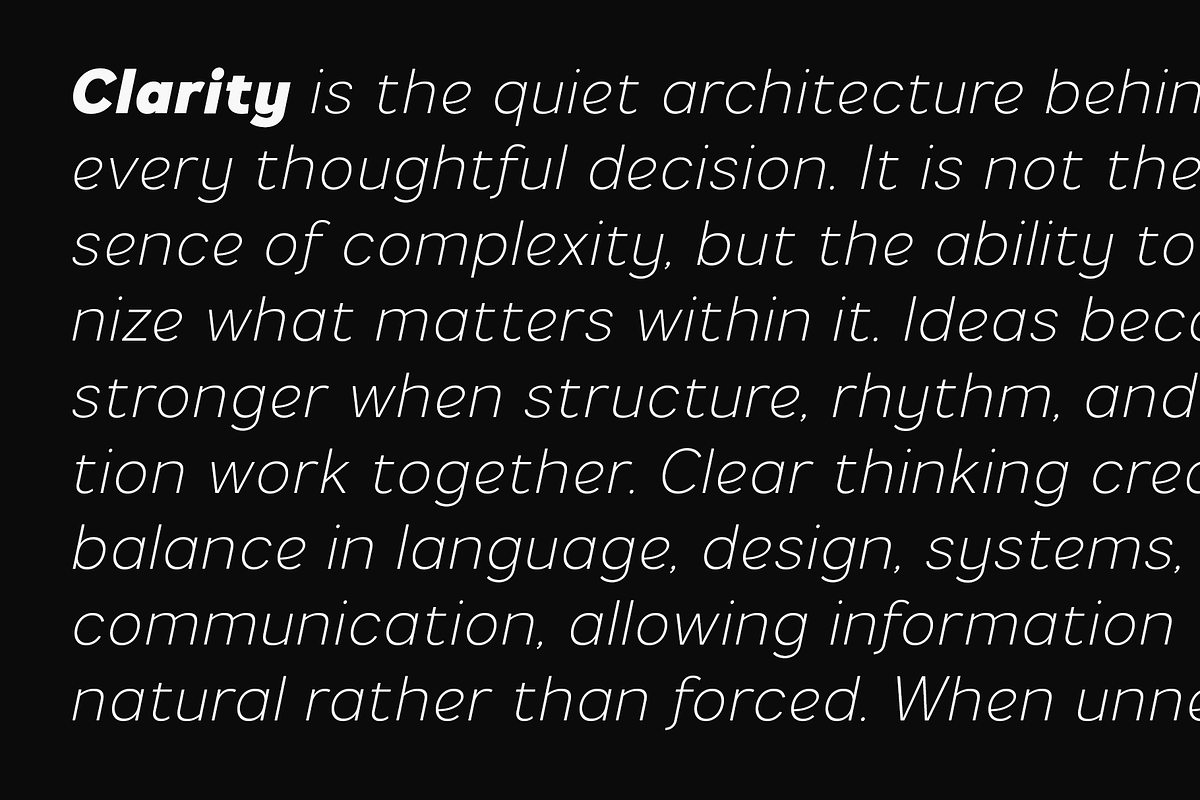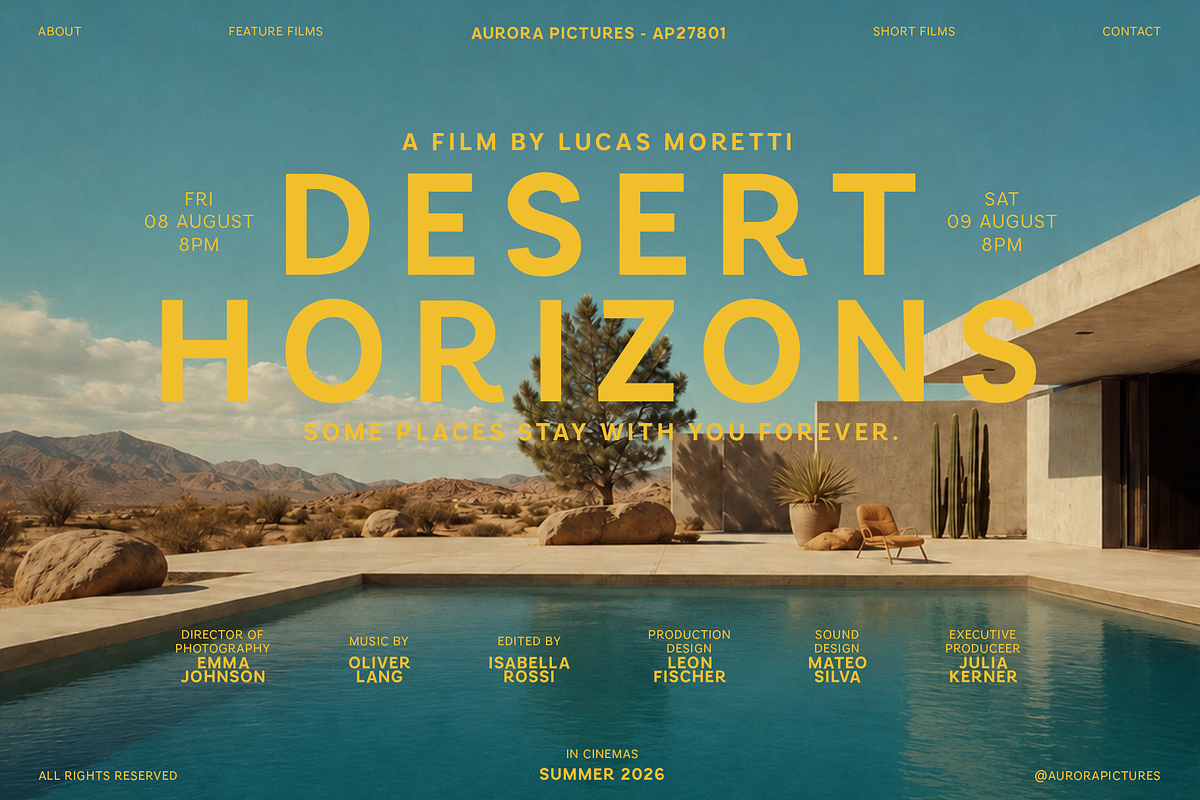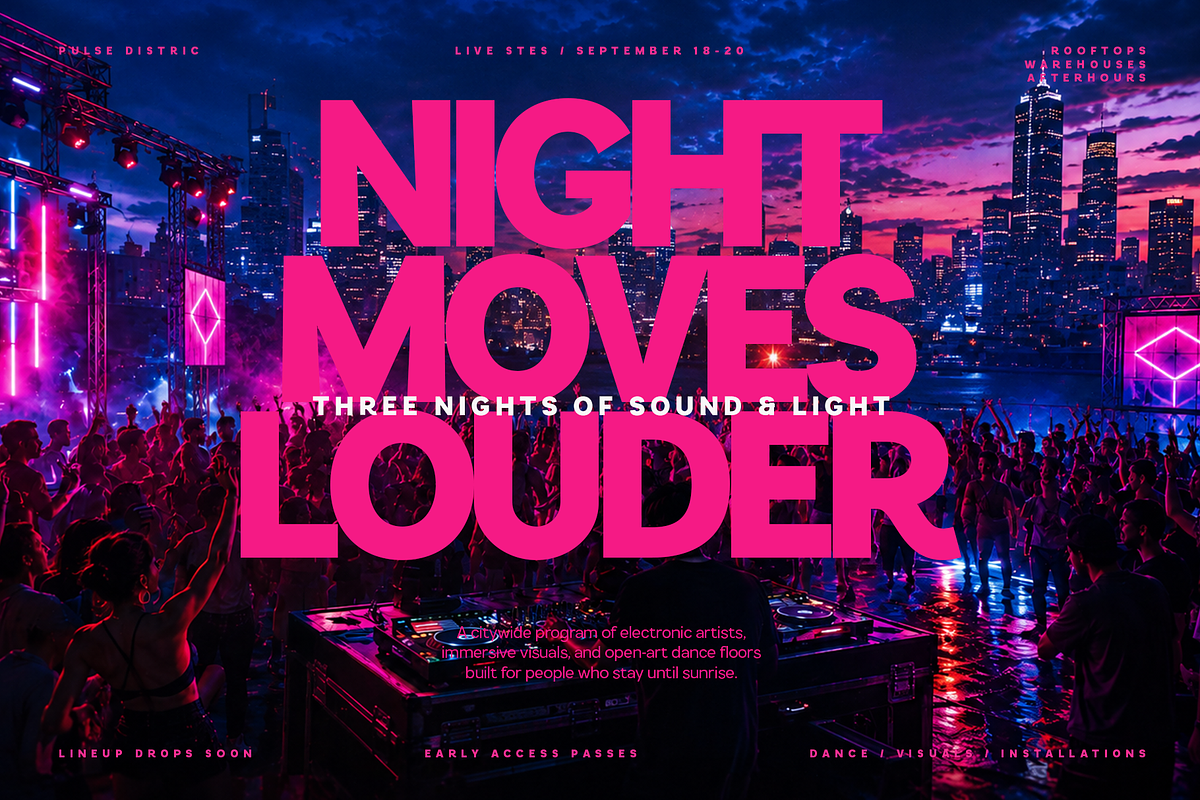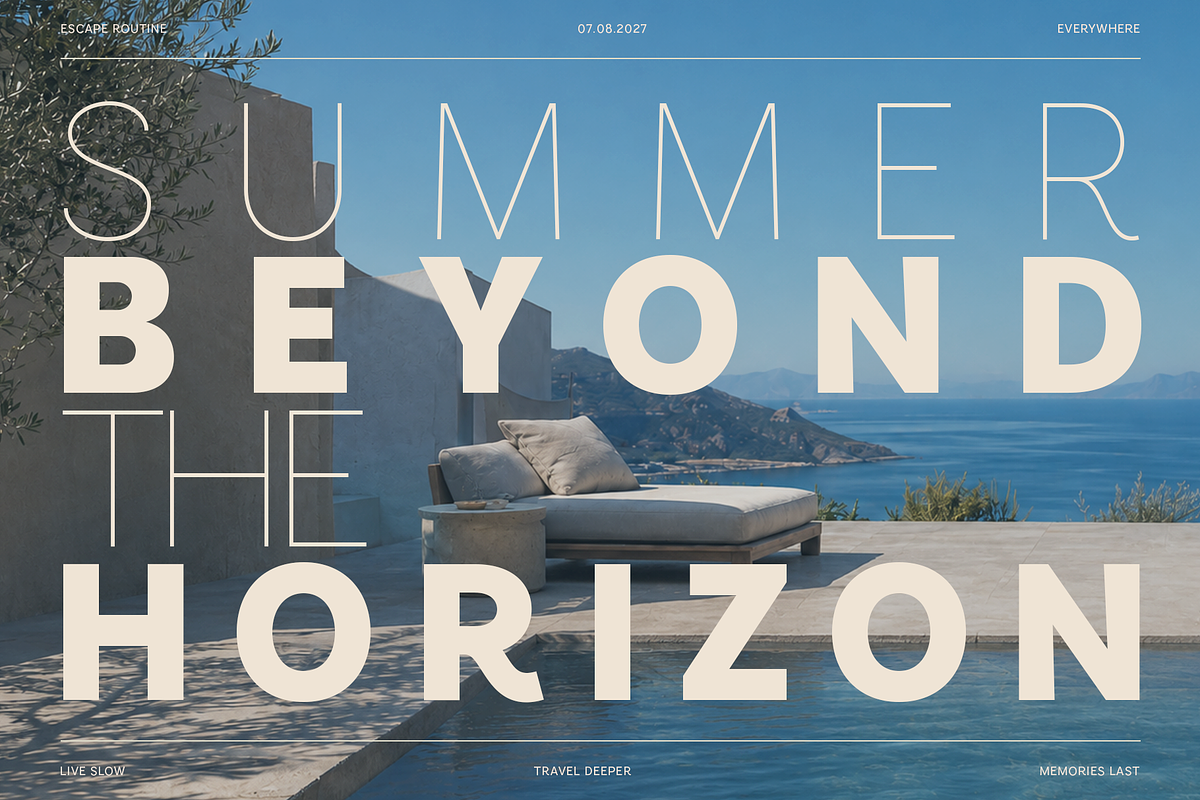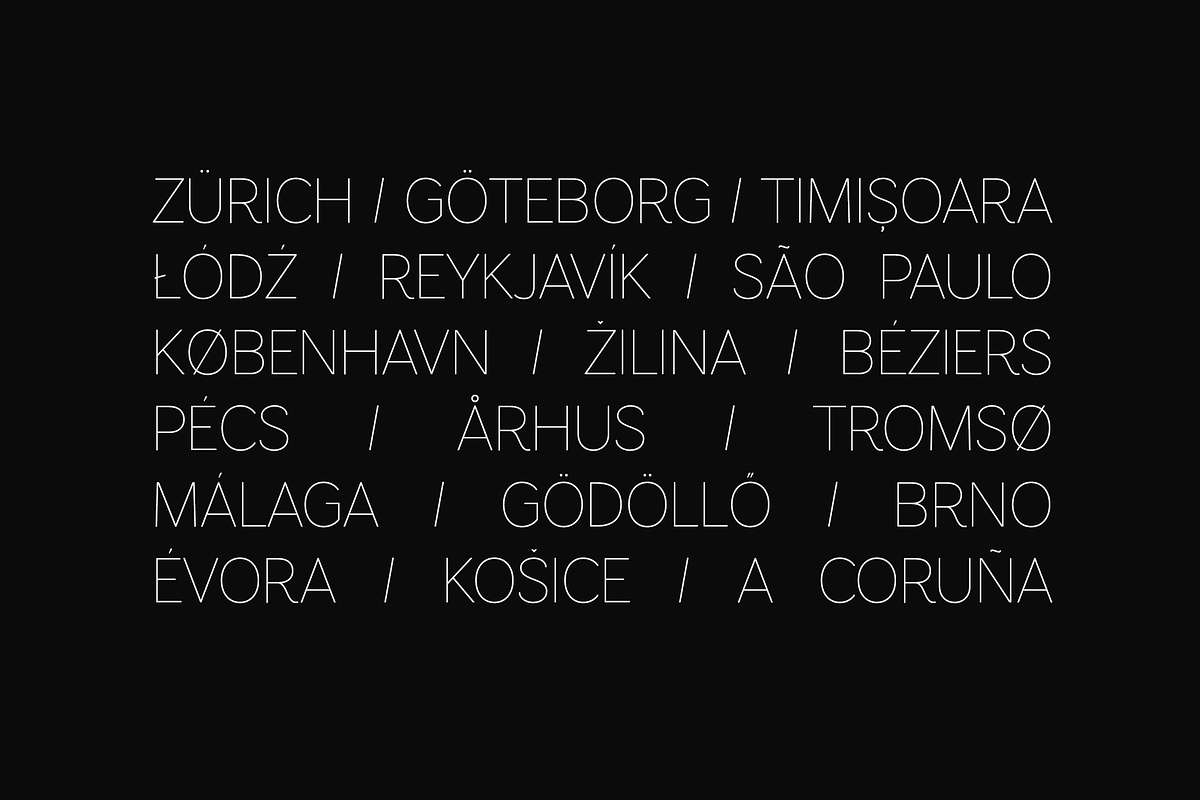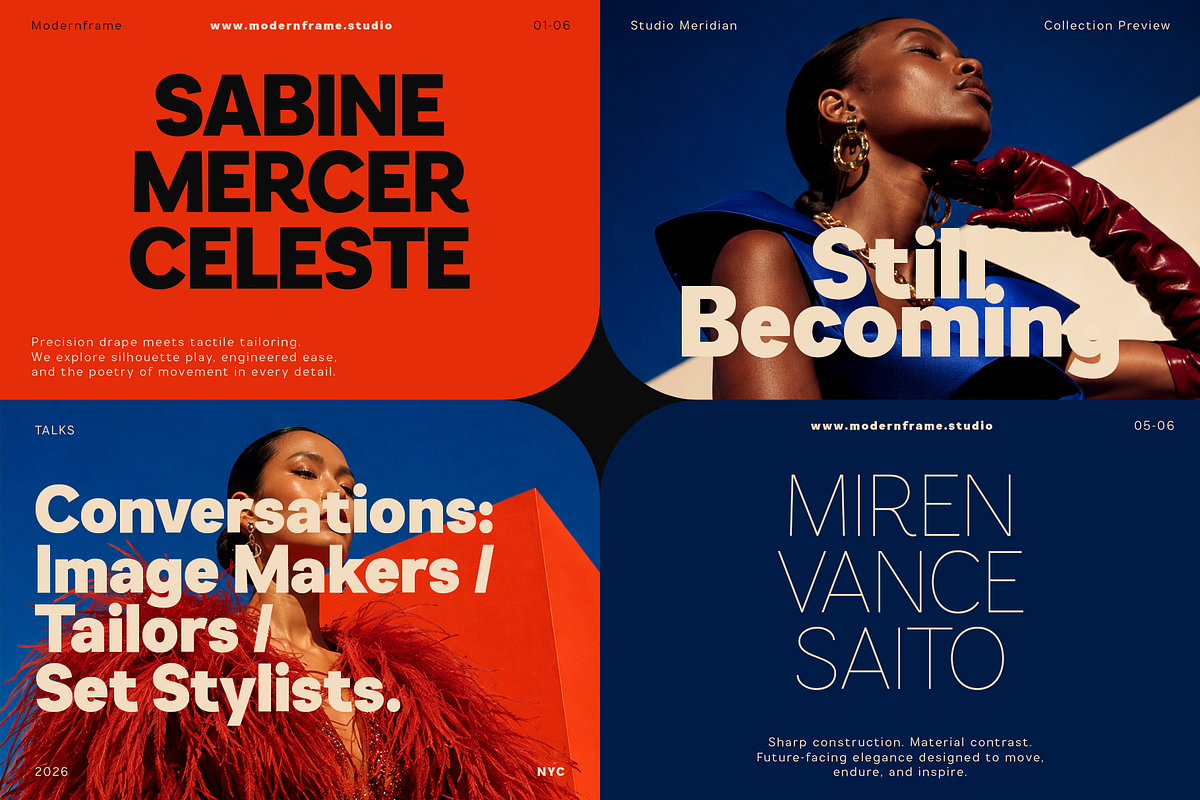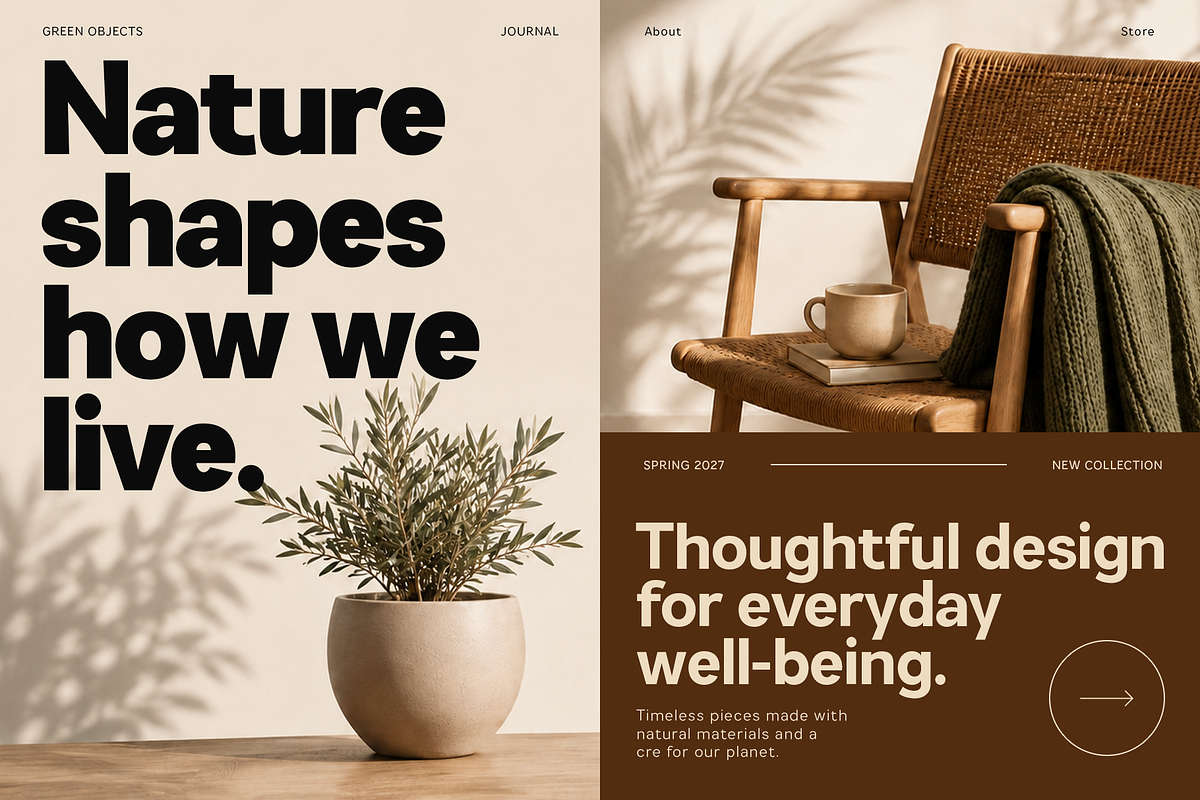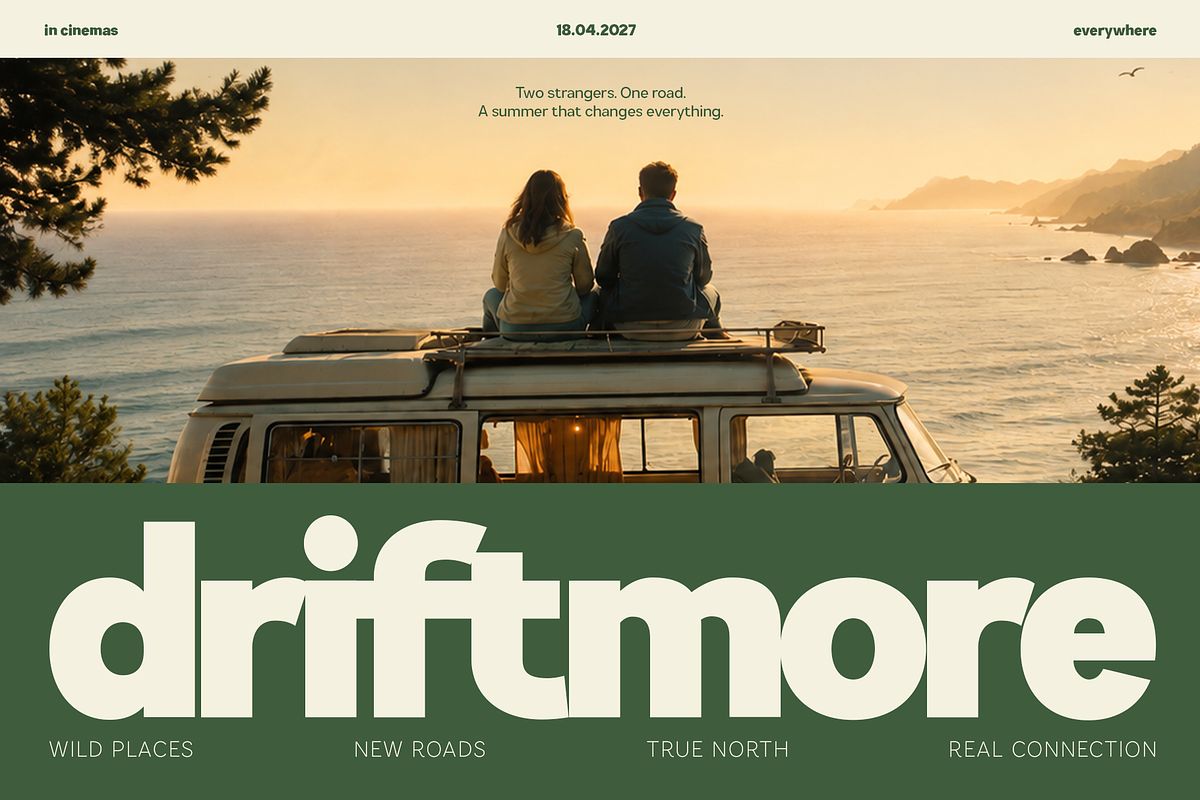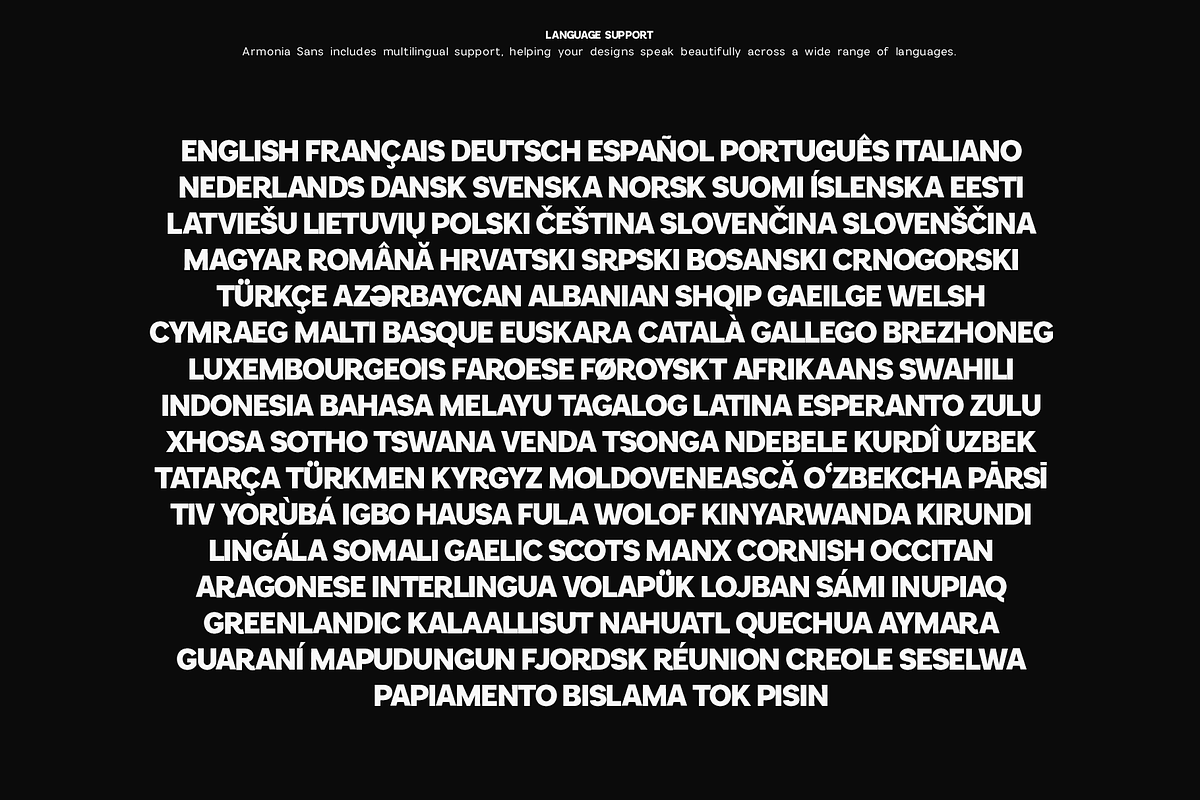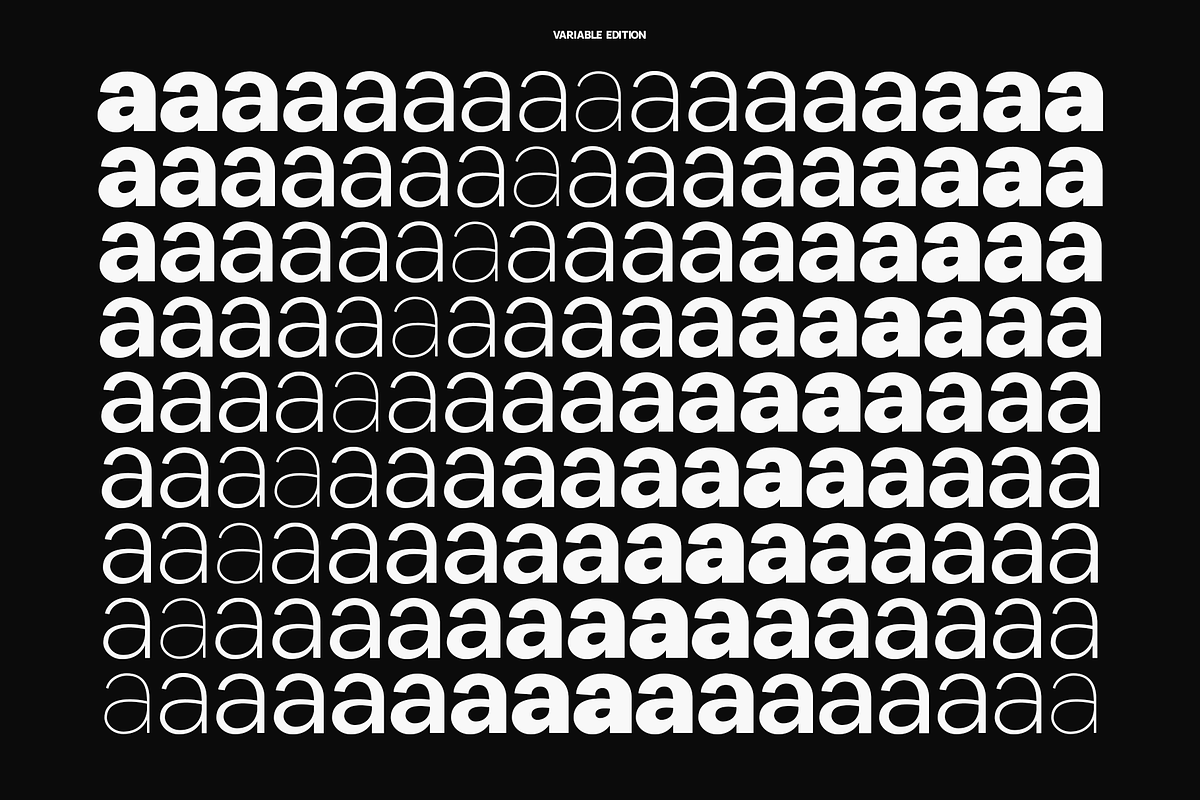
Armonia Sans - Variable Typeface
Armonia Sans is a contemporary sans serif font family built for designers who need both quiet precision and confident visual impact.
Clean proportions, open forms, balanced spacing, and a smooth typographic rhythm give Armonia Sans a versatile character that moves naturally between refined editorial typography, bold display work, modern branding, packaging, and digital design.
The family includes 9 carefully developed weights from Thin to Black, each with a matching italic - 18 styles in total. A Variable Edition adds even more flexibility, allowing you to move smoothly through the weight range and create highly controlled typography from delicate and understated to bold and commanding.
Armonia Sans works beautifully across both large-scale headlines and structured design systems, making it a strong choice for designers looking for one cohesive family that can handle many different visual roles.
PERFECT FOR
Brand identities and logo design
Editorial and magazine layouts
Websites, apps and UI design
Packaging and product design
Posters and advertising
Fashion and creative campaigns
Headlines and display typography
Corporate identities
Presentations and portfolios
Social media and digital graphics
FAMILY FEATURES
9 weights - Thin to Black
9 matching italics
18 styles total
Variable font edition
Numerals and extensive punctuation
Extended accented characters
Broad multilingual Latin support
Stylistic character variations
Carefully balanced spacing and proportions
Strong contrast between delicate and heavy weights
From restrained Thin typography to powerful Black headlines, every weight remains connected through the same visual language.
Armonia Sans is designed as a complete contemporary type system - clean enough for functional communication, distinctive enough to give a brand its own voice.